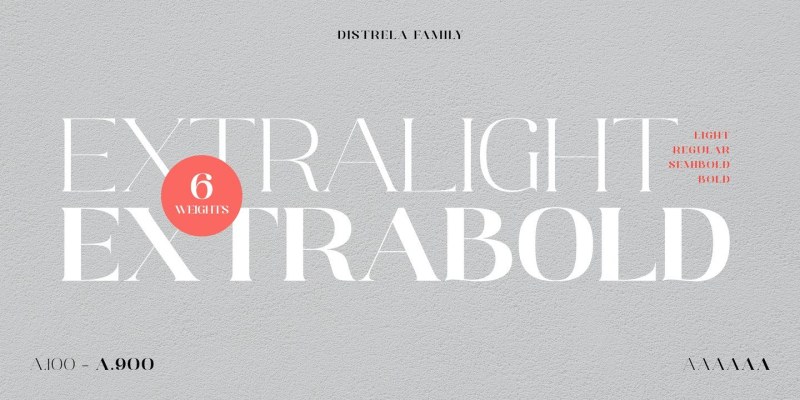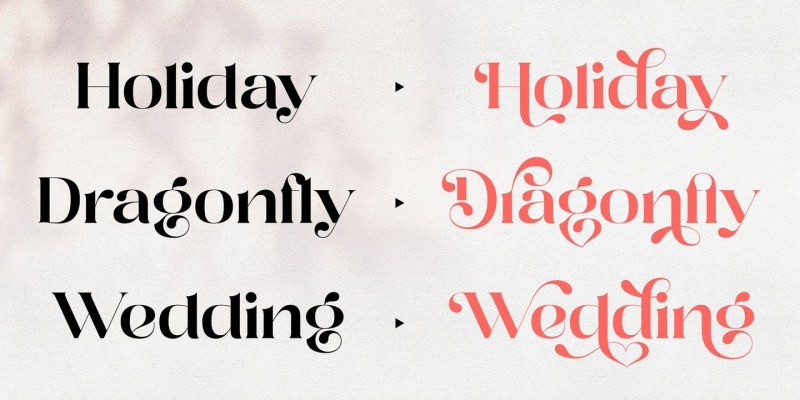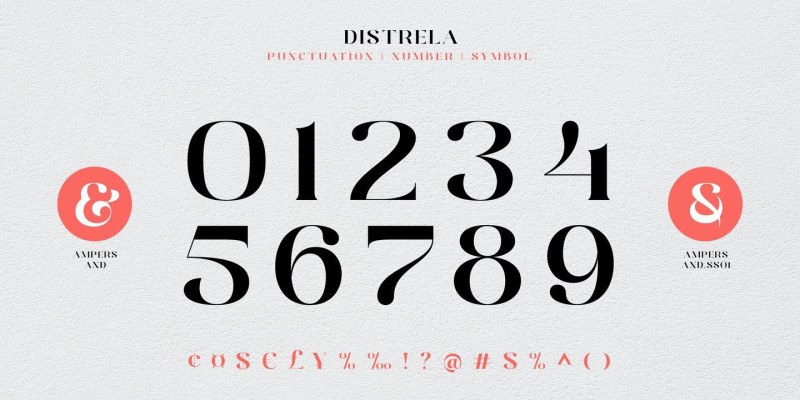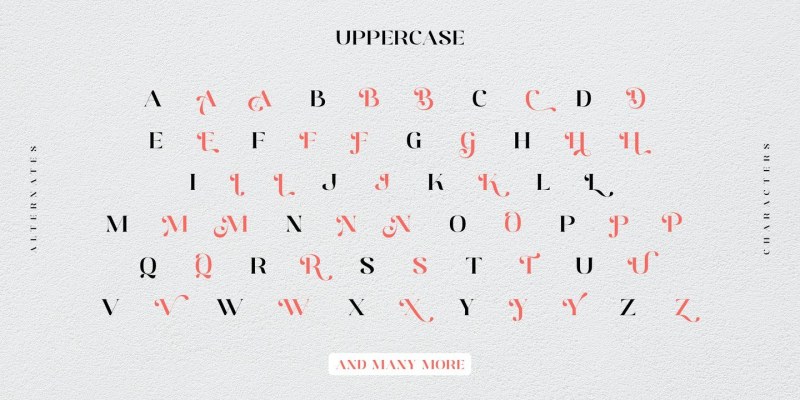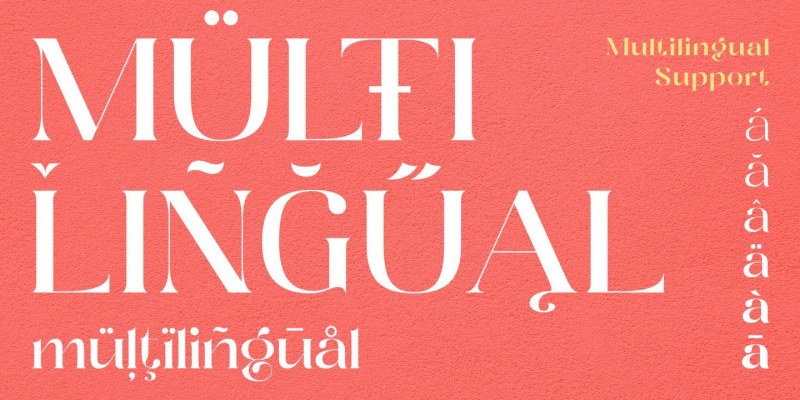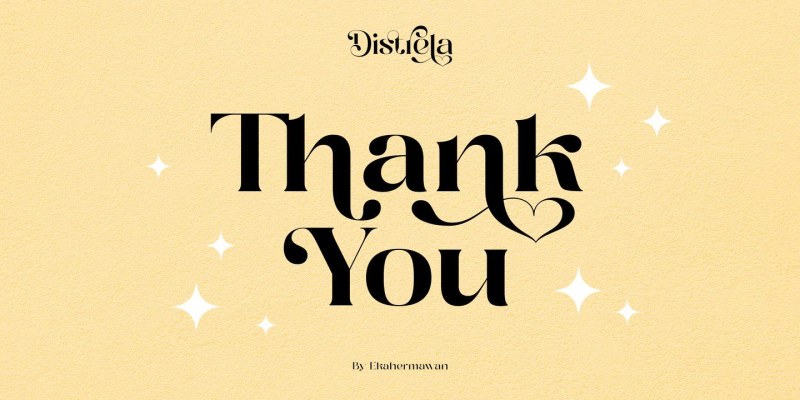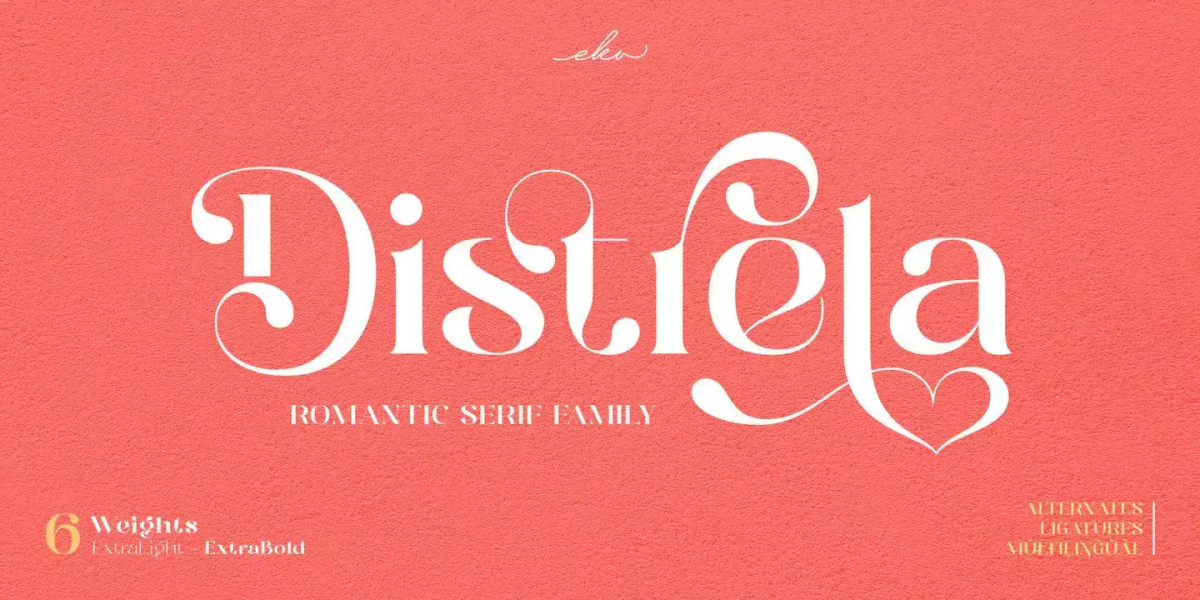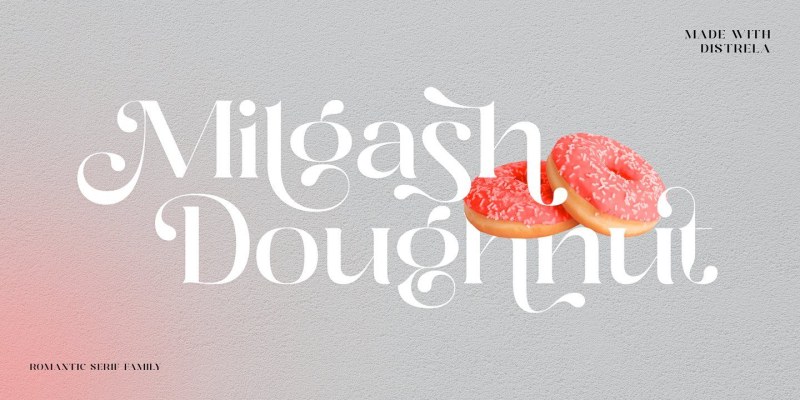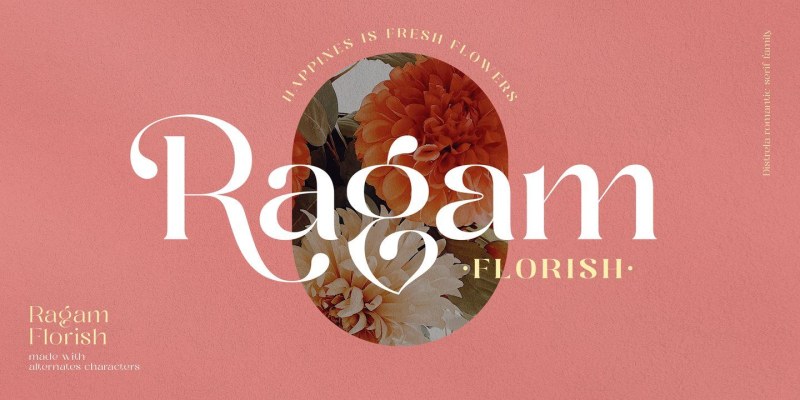
Distrela Font
Introducing, Distrela is a romantic serif family that consists of 6 weights from ExtraLight to ExtraBold. Distrela comes with lots of alternates and ligatures characters…
Introducing, Distrela is a romantic serif family that consists of 6 weights from ExtraLight to ExtraBold. Distrela comes with lots of alternates and ligatures characters that are specially designed with a romantic theme to make your design projects look more beautiful such as logo design, wedding, branding, poster, magazines, labels, merchandise, invitation, presentation, advertising and so much more!
Where Distrela Font works best
Distrela Font gives long-form text a classic, trustworthy rhythm — ideal for magazine spreads, annual reports and book interiors.
Pair Distrela Font with generous letter-spacing for wordmarks in fashion, hospitality, wine and jewellery branding.
Use Distrela Font for slide titles in Keynote, PowerPoint or Google Slides to add authority without looking dated.
What is Distrela Font good for?
Distrela Font is a Serif Fonts typeface tagged Branding, Editorial, Free, Packaging. It works well for headlines, logos, posters, social media graphics and branding projects that need a distinctive serif fonts look.